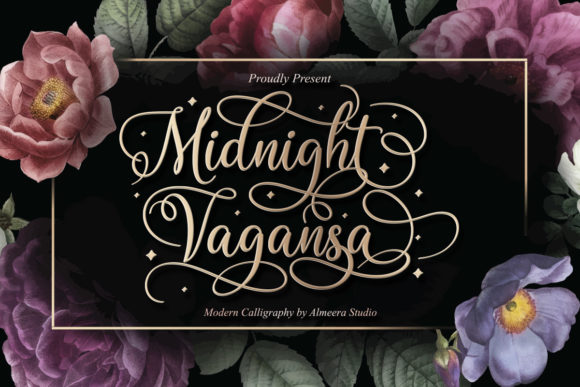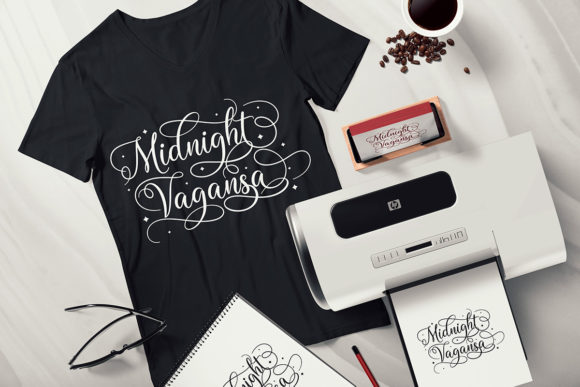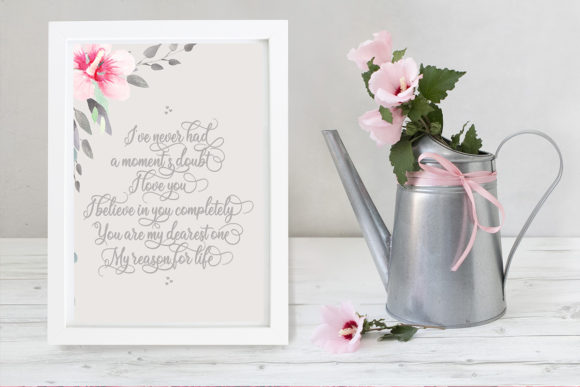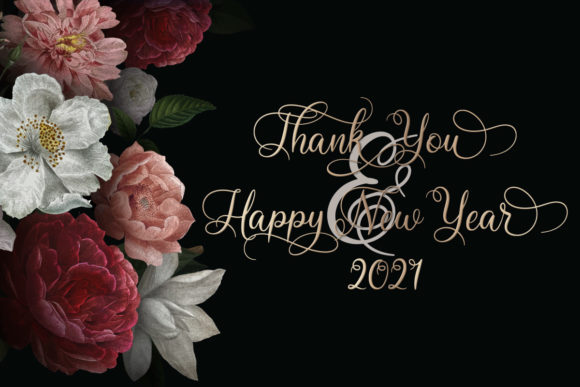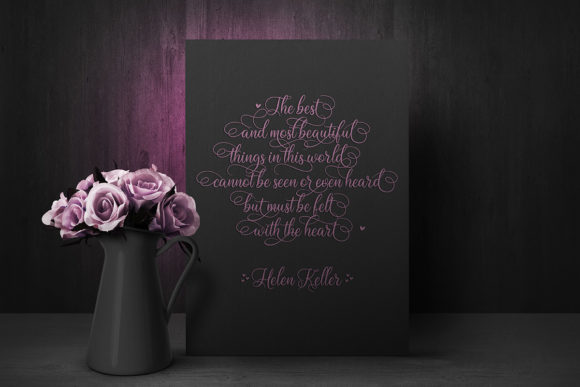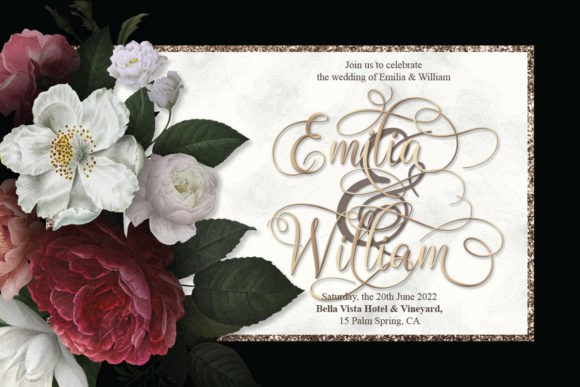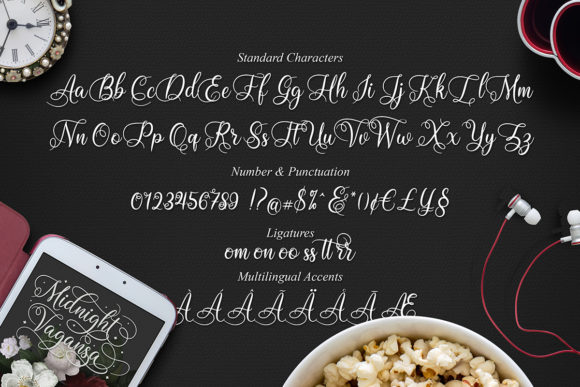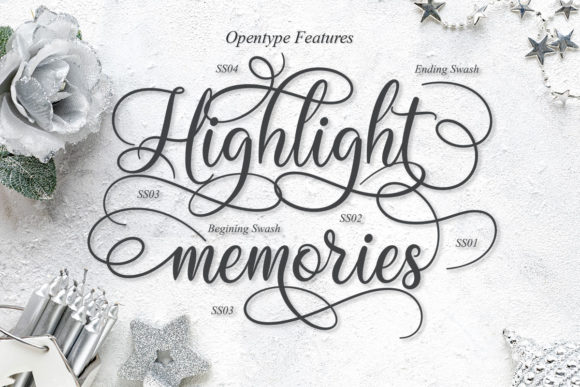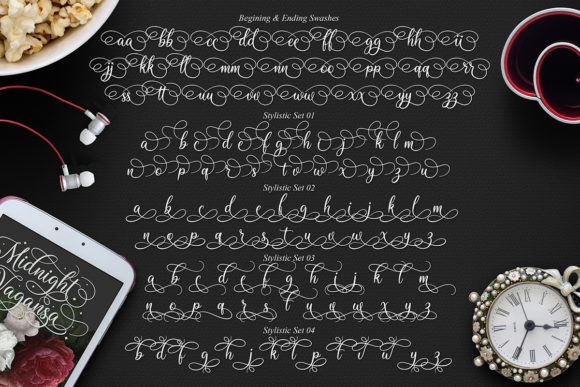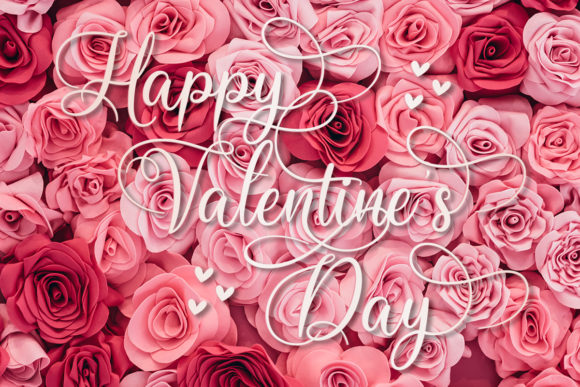
Midnight Vagansa Font
About Midnight Vagansa Font
Introducing “Midnight Vagansa” – an elegant script font that combines a contemporary atmosphere with impeccable form, taking inspiration from timeless classic calligraphy. This font strikes the perfect balance between thin and thick strokes, offering a harmonious and varied design that will enhance the beauty of your projects.
With its refined and sophisticated style, Midnight Vagansa is a versatile choice for a wide range of design applications. Whether you’re working on wedding invitations, branding materials, quotes, logos, or any other project that requires an elegant touch, this font will elevate your designs to new heights.
The PUA (Private Use Area) encoding of Midnight Vagansa allows easy access to all the additional glyphs and swashes included in the font. This feature provides you with greater flexibility and creativity in customizing your designs, making it effortless to add flourishes and decorative elements to your typography.
Embrace the elegance and contemporary charm of Midnight Vagansa, and witness how it enhances the beauty of your projects. Let it be the font that adds a touch of sophistication and timeless appeal to your designs, capturing the attention of your audience. With Midnight Vagansa, your typography will exude elegance and grace.